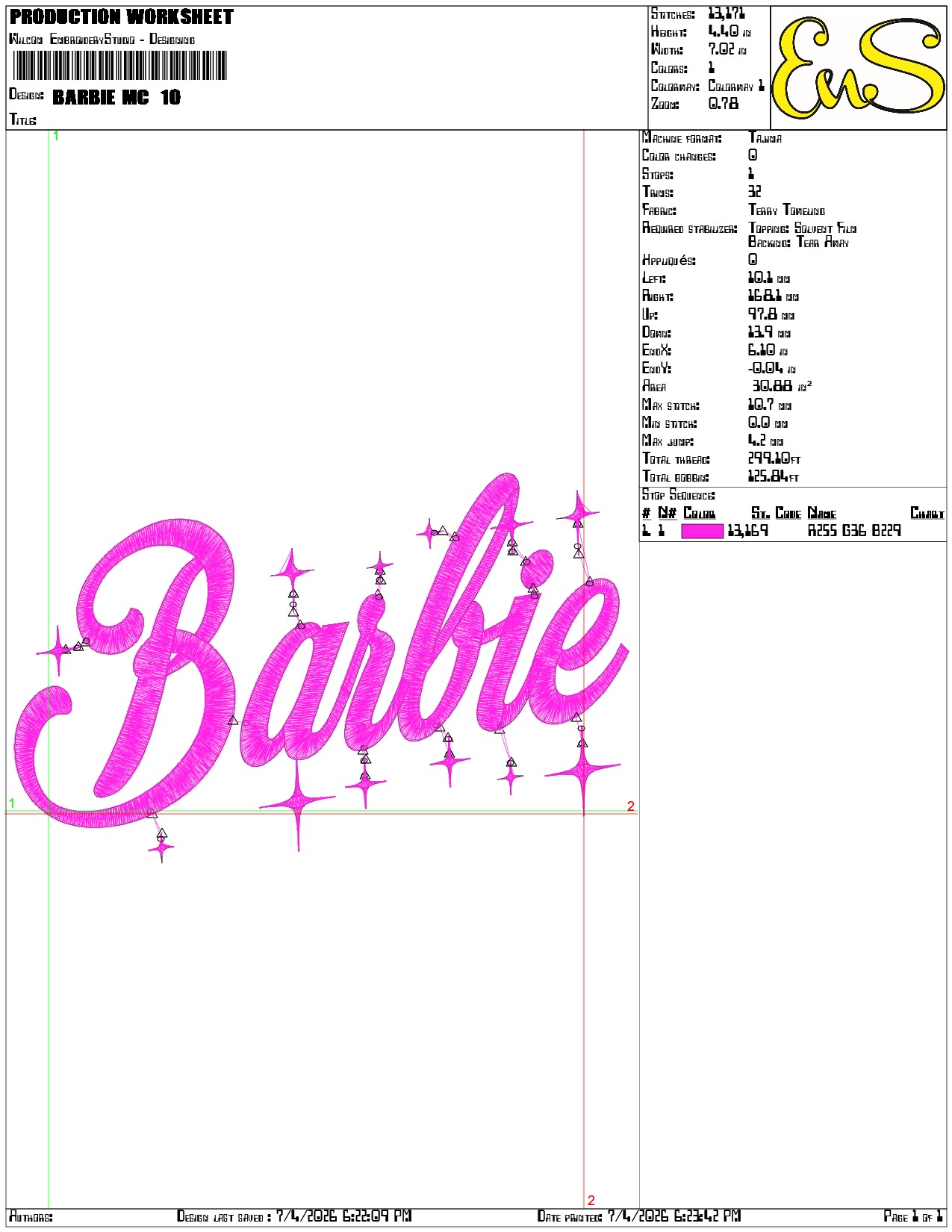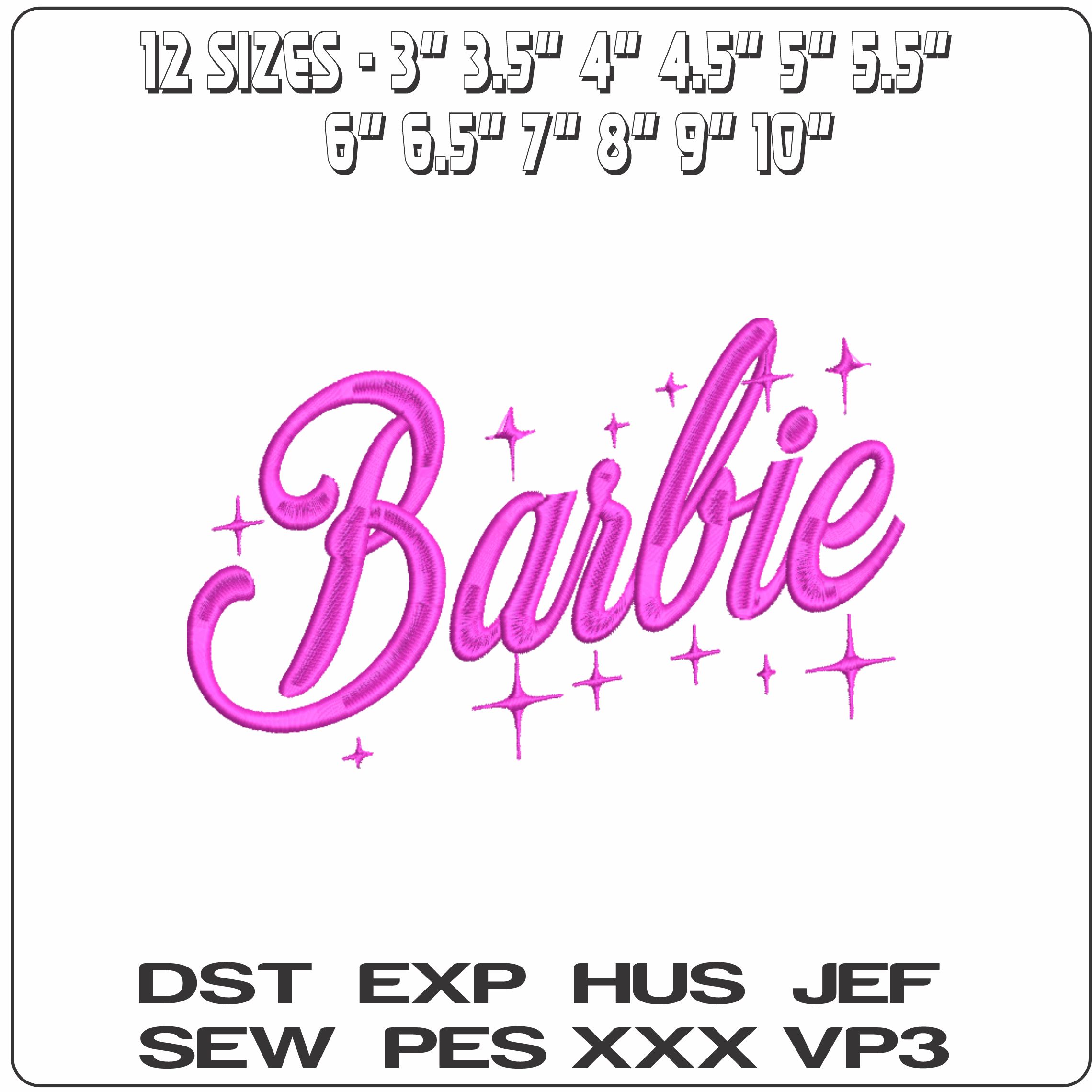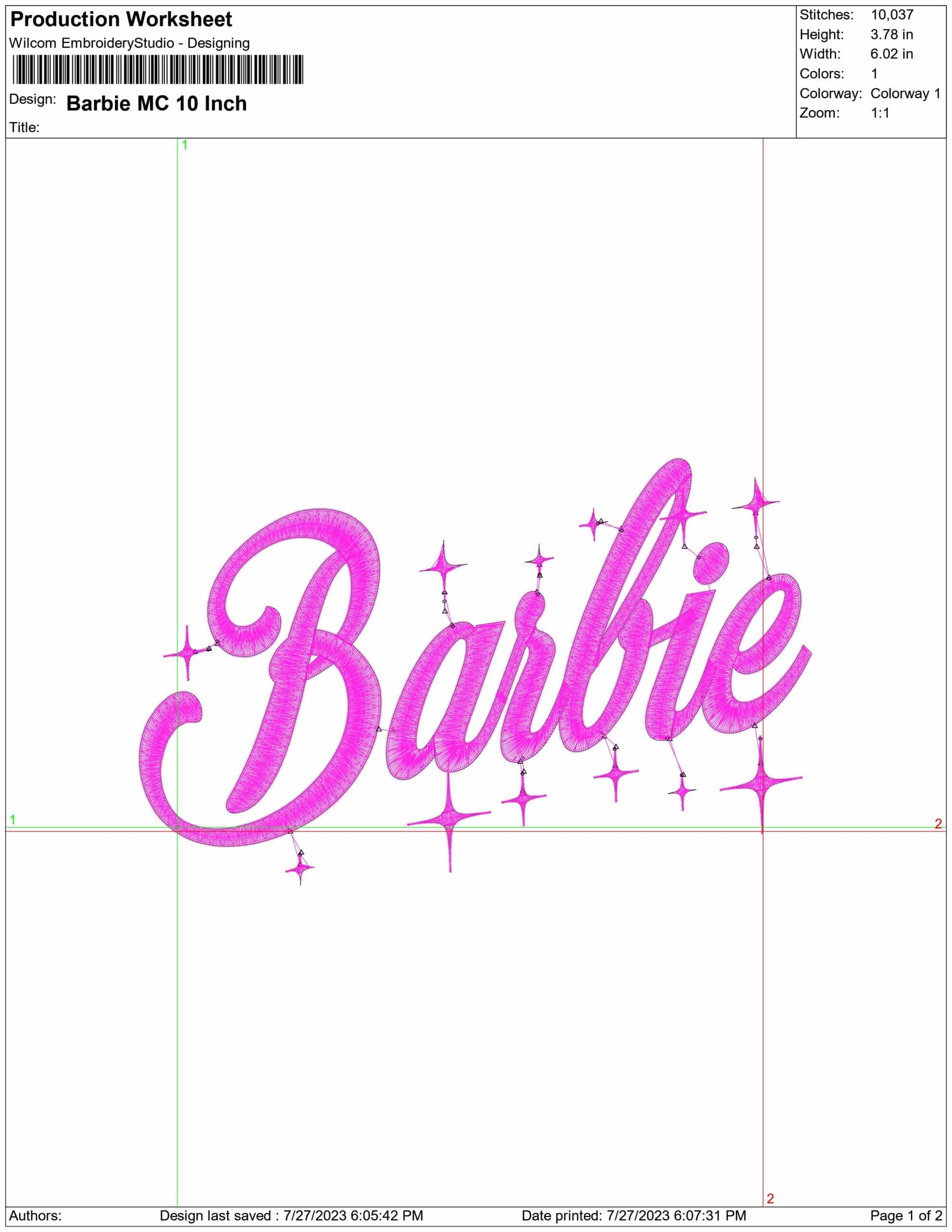
Bright pink Barbie script with twinkling stars, made to add a clean, playful pop to jackets, bags and bedroom accessories.
Add pink sparkle to a jacket, gym bag or bedroom accessory with this Barbie text embroidery design. The artwork centres on the flowing Barbie script in bright pink and magenta, finished with little star sparkles and soft curved flourishes that give it a merry, light-catching feel. It suits children’s makes, Barbie-themed gifts and playful pieces for anyone who still loves that unmistakable logo look.
Because the stitching is open and lightly worked, the design keeps the script airy instead of heavy, so the wordmark stays easy to read without turning stiff. The single-colour build gives it a clean, bold finish that works especially well on sweatshirts, denim jackets, tote bags, pyjama cases and cushion covers. With sizes ranging from small accents to larger statement placements, it can sit neatly on a pocket area or stretch across the front of a tote with the same bright, playful character.